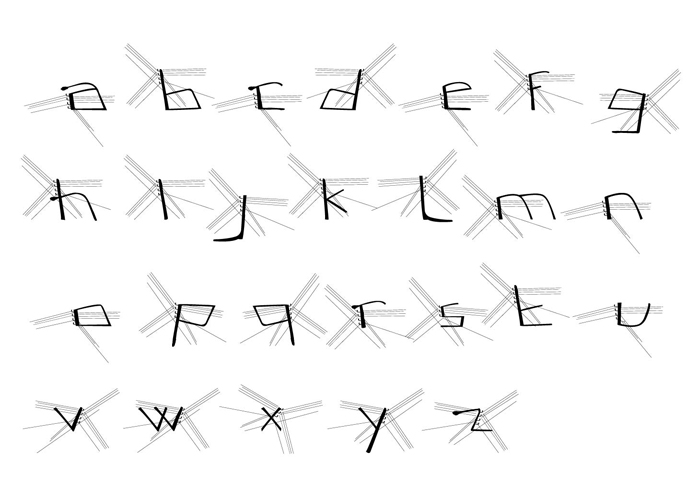
Fontname: streetwire
Designer: Hayat Zock
The streetwire font is a reflection of the Lebanese urban environment. It depicts the condensed structures created by local electric and communication wires.